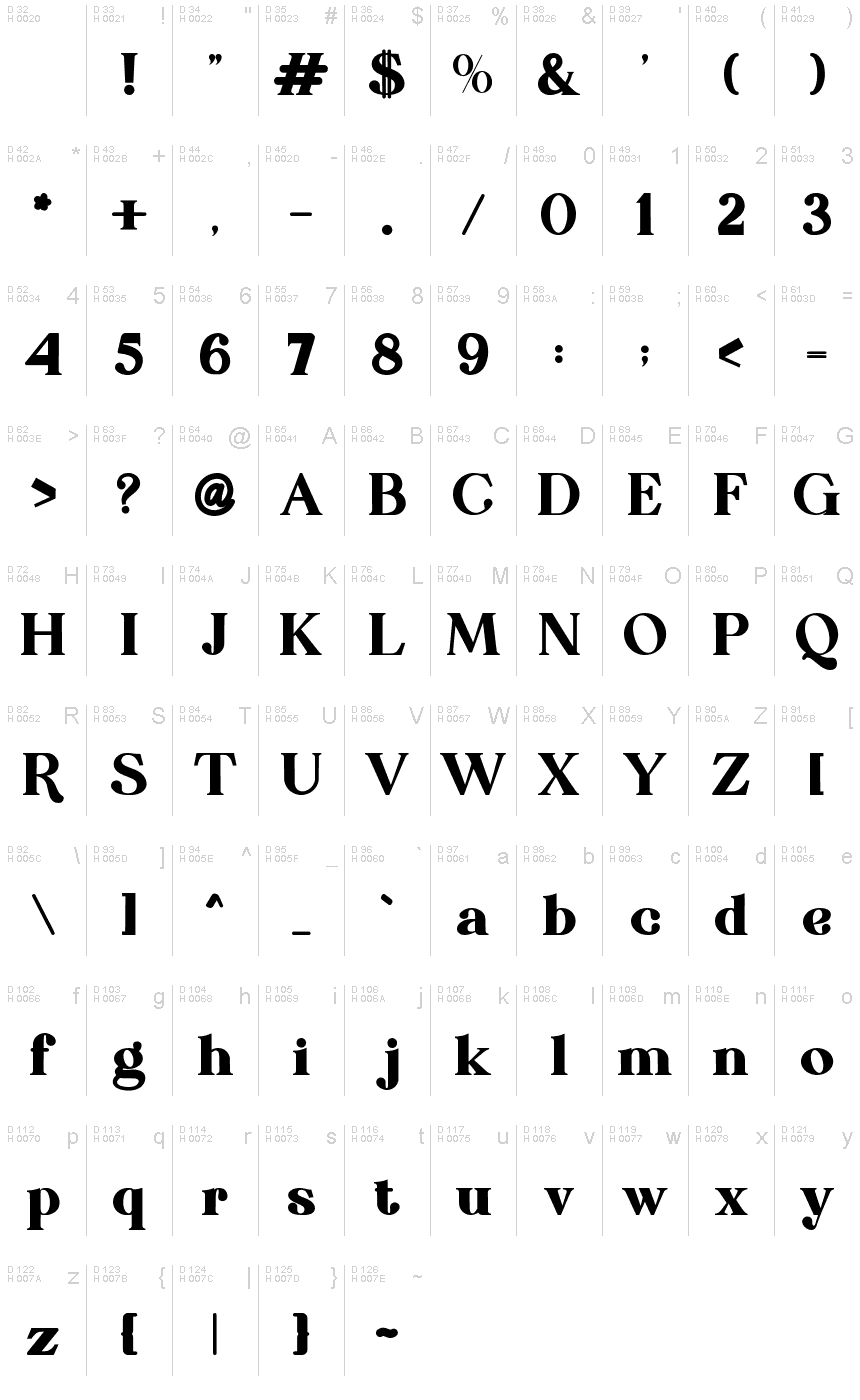
Brief River
Brief River, the extra-bold serif font from Green Adventure Studio, makes a bold statement in any project. Its thick lines and strong curves give it an authoritative presence, perfect for headlines and titles that need to grab attention. The classic yet modern style of Brief River lends itself to a variety of projects, from luxury branding to editorial design to product packaging. Use this font typeface to add a touch of sophistication and elegance to your next project. With its commanding presence, Brief River is sure to leave a lasting impression on your audience.